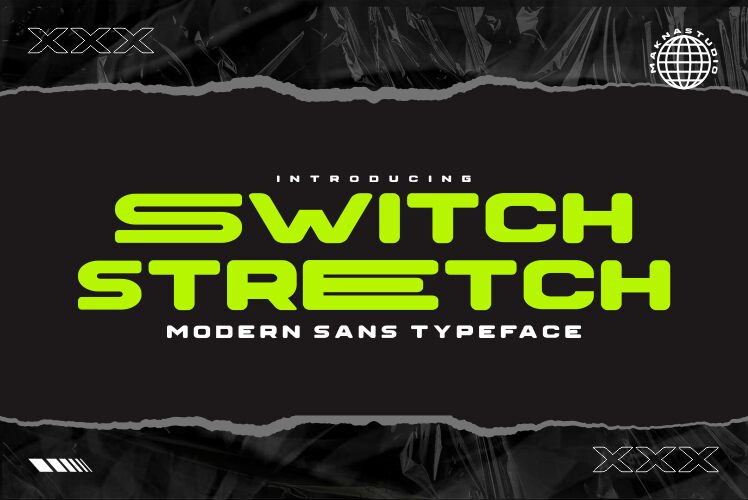
SWITCH STRECTH
Switch stretch font by MaknaStudio is an expanded bold sans serif that captures elegant futuristic style with a modern touch. This free font moves away from edgy shapes and opts for rounded, geometric letters instead. Sleek and attractive defines the overall look of this typeface.